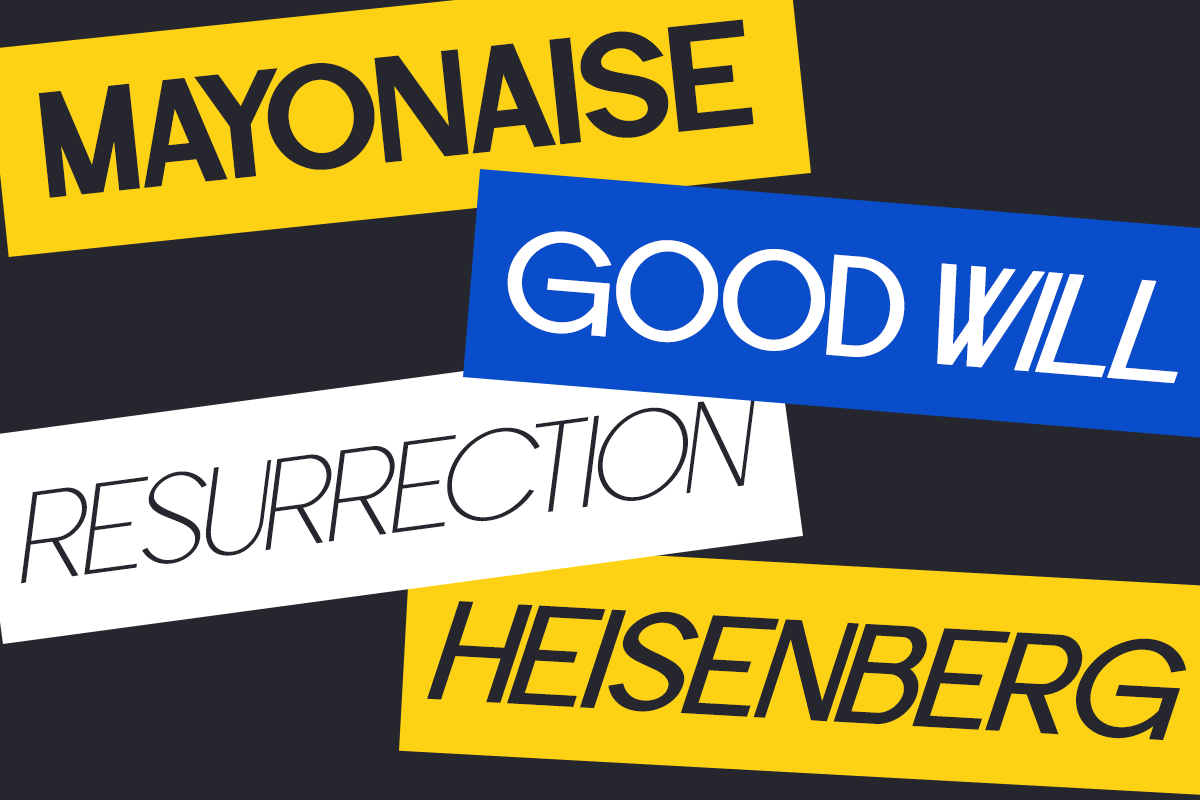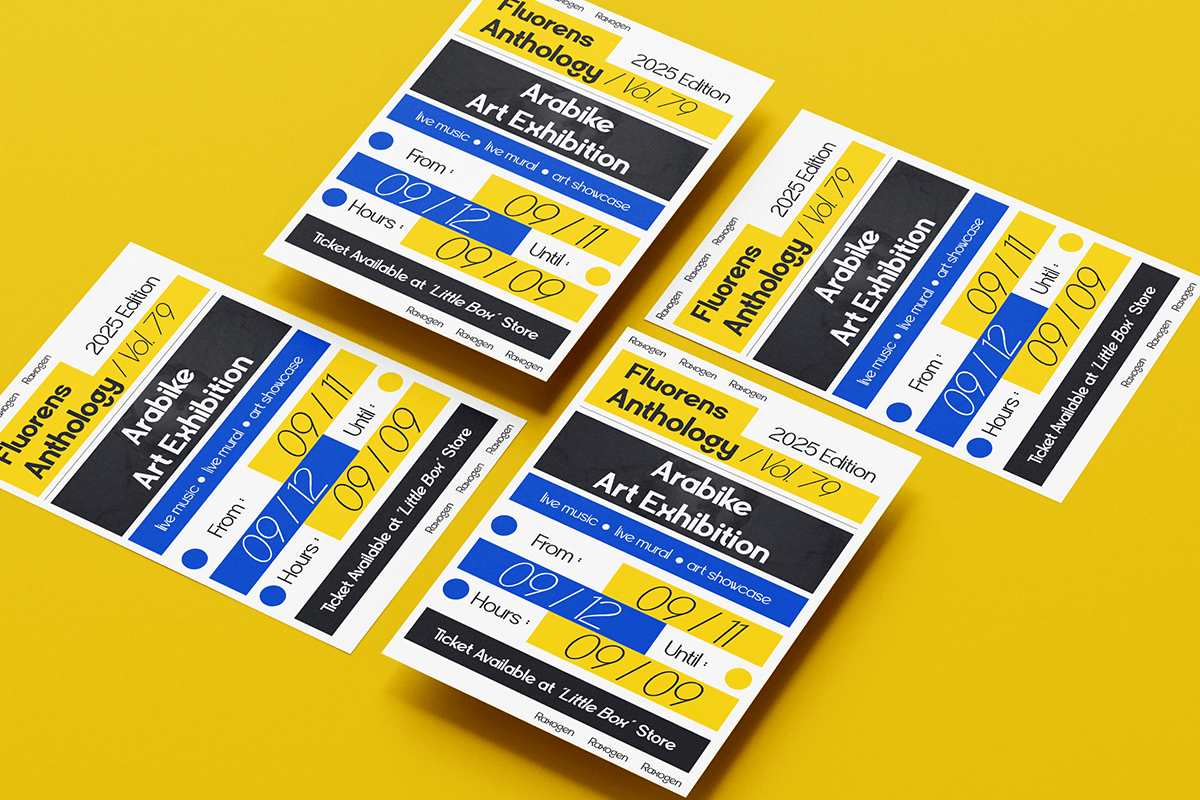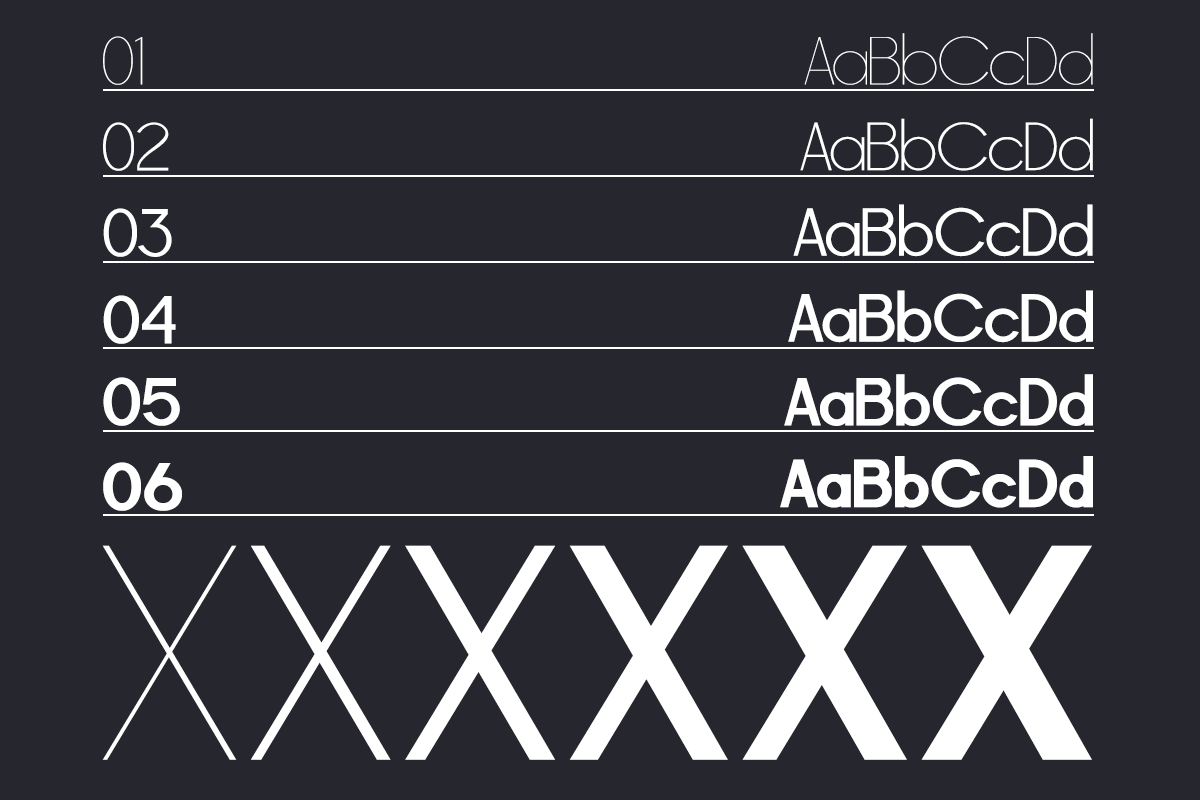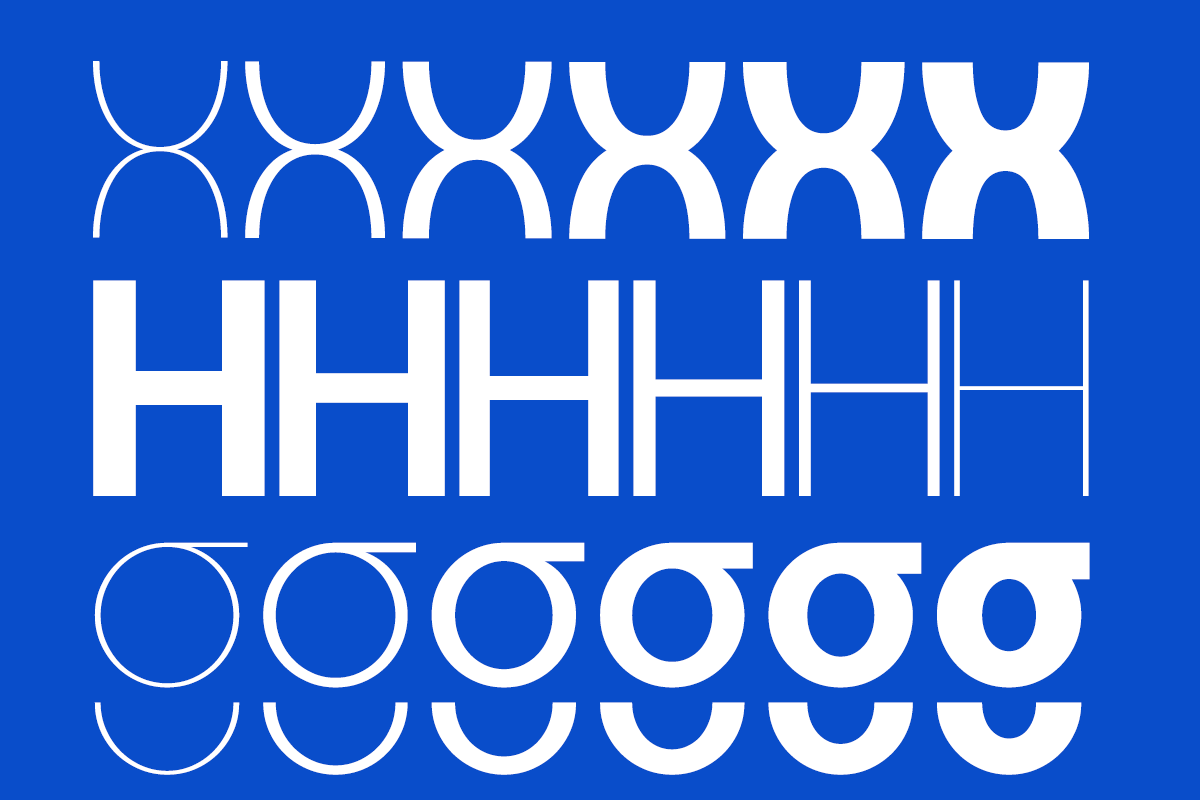
Raxogen – Geometric Sans Serif Font
Raxogen is a modern geometric sans serif font crafted with clean proportions, rounded details, and a bold contemporary personality. Designed with six versatile weights, it delivers exceptional readability while maintaining a distinctive visual identity that stands out across both digital and print media.
Whether you’re designing logos, branding systems, posters, packaging, editorial layouts, websites, mobile interfaces, social media graphics, or marketing campaigns, Raxogen provides a professional and flexible typographic solution. Its geometric construction creates a sleek, minimal aesthetic that works perfectly for startups, technology brands, fashion labels, architecture studios, sports branding, and creative businesses.
The complete family includes multiple weights, uppercase and lowercase characters, multilingual support, numerals, punctuation, and symbols, making it suitable for both professional designers and creative enthusiasts. Raxogen is an excellent choice for bold headlines, visual identities, modern advertising, presentations, product packaging, UI/UX projects, and every design requiring a clean, confident, and timeless geometric sans serif.